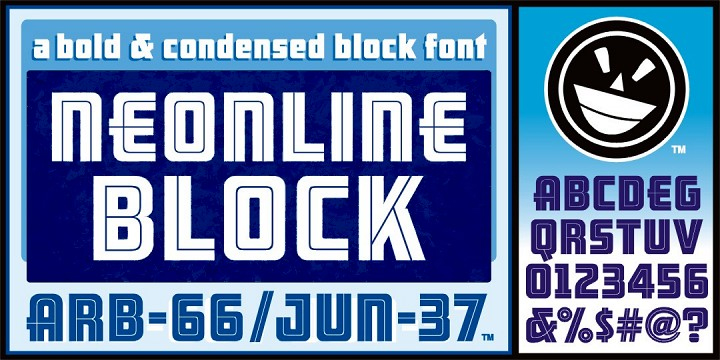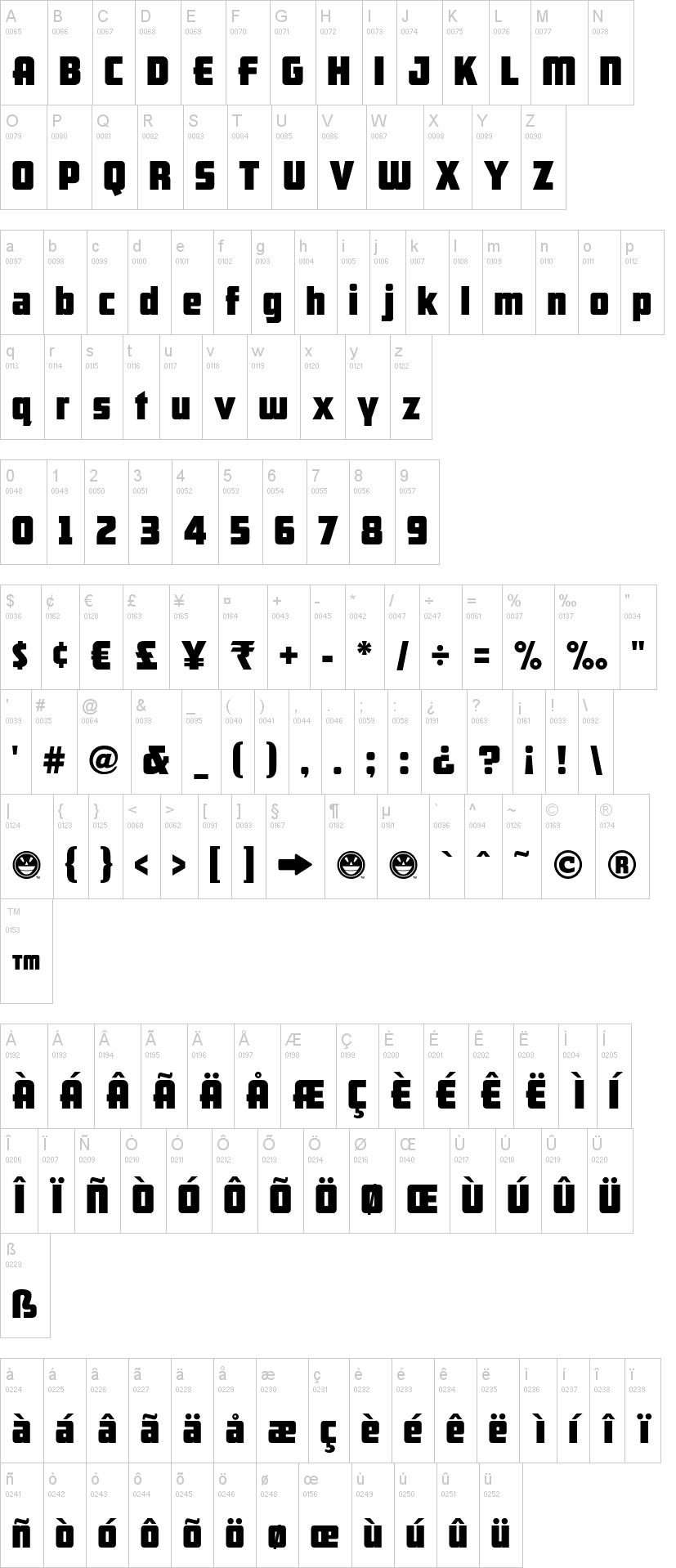
ARB 66 Neon Line JUN-37.ttfNote of the authorBeginning in January, 1932, Becker, at the request of then-editor E. Thomas Kelly, supplied "SIGNS of the Times" magazine's new Art and Design section with an alphabet a month, a project predicted to last only two years. Misjudging the popularity of the "series," it instead ran for 27 years, ending finally two months before Becker's death in 1959, for a grand total of 320 alphabets, a nearly perfect, uninterrupted run. In late 1941, almost ten years after the first alphabet was published, 100 of those alphabets were compiled and published in bookform under the title, "100 Alphabets," by Alf R. Becker.
As published in June, 1937, this is the description that accompanied Becker's 66th alphabet, Neonline Block:
NEONLINE BLOCK, alphabet No. 66 in Alf R. Becker's SIGNS of the Times series, is a very bold, modern style for feature display lettering. Care should be taken in the laying out of this alphabet, and every letter should be made as bold as possible.